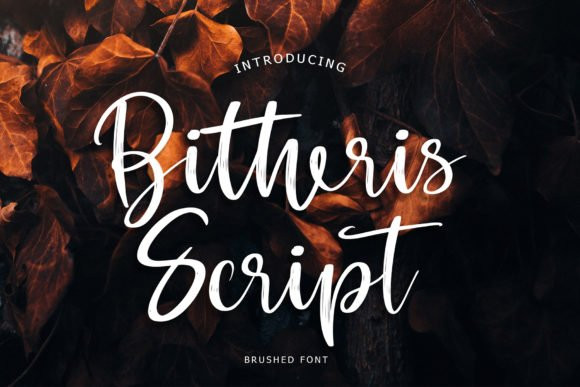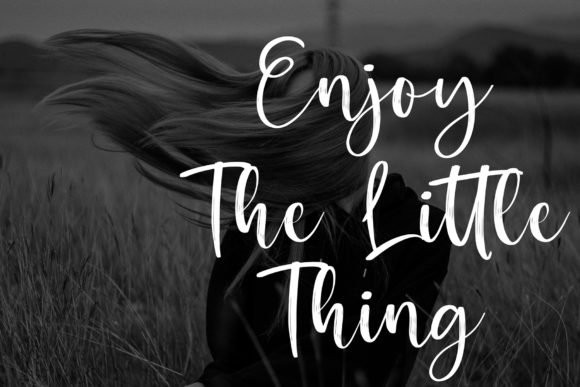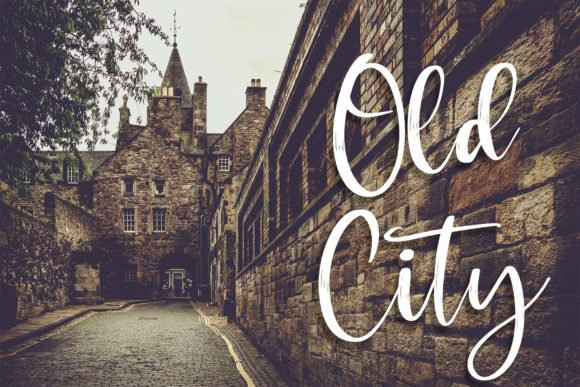
Bitheris Script Font
Bitheris Script FontBitheris is a brush handwritten font that will make your text look elegant, luxurious, and modern!
It is perfect for branding projects, logos, wedding designs, social media posts, advertisements, product packaging, t-shirt designs, and so much more.